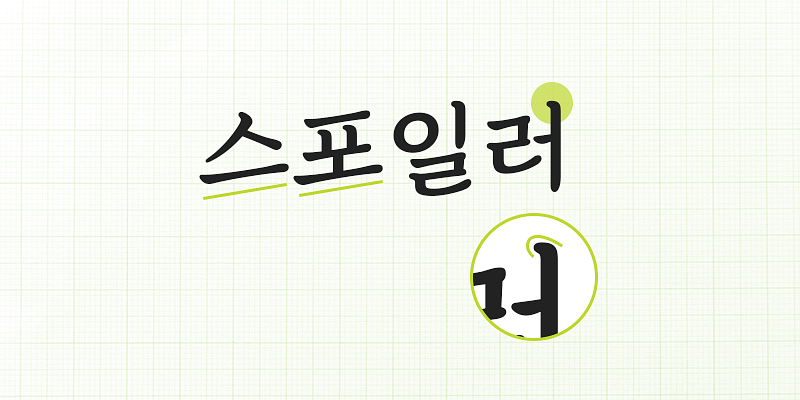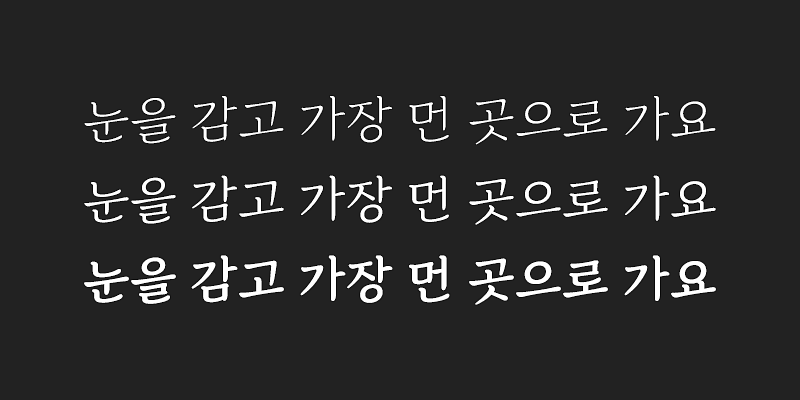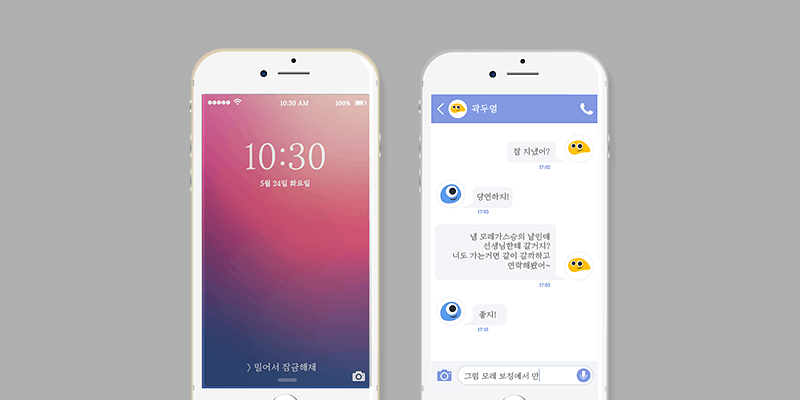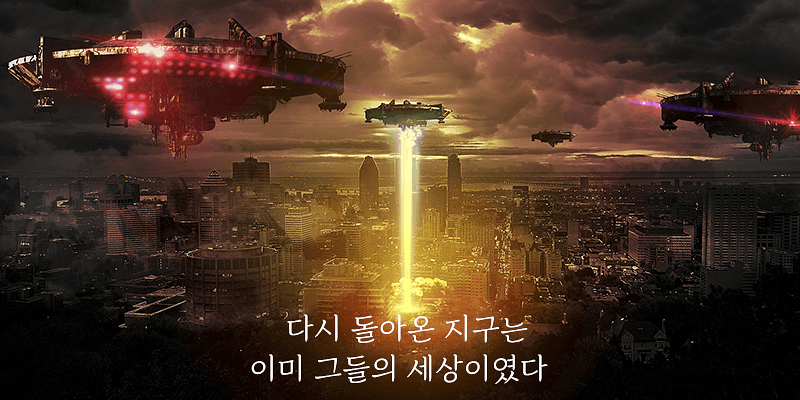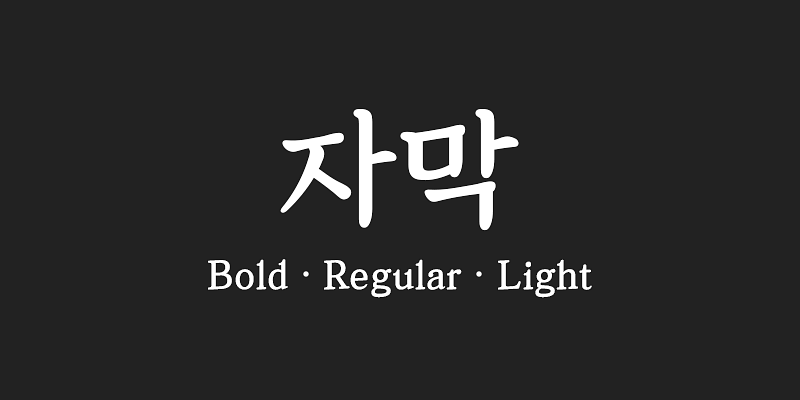
210 Jamak was initially intended for use as film subtitles, designed with a characteristic slant. It has optimized width and spacing to enhance legibility, and features soft curves and serifs for a comfortable reading experience. It is a suitable choice for a wide range of designs, not just subtitles and captions.